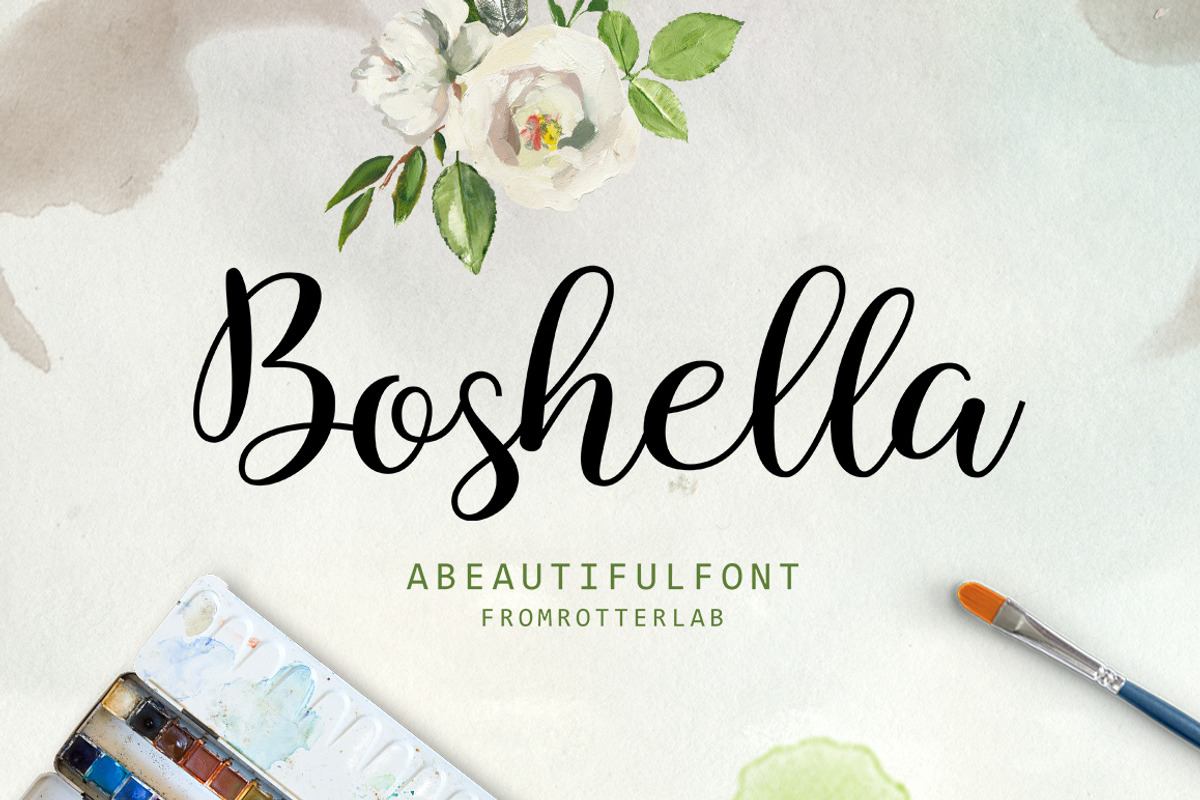
Boshella Script Font Free Download is an elegant, flowing handwritten script typeface that adds a romantic and refined touch to any design. With its graceful curves and natural stroke rhythm, Boshella is perfect for wedding invitations, feminine branding, logo design, quote graphics, and upscale packaging.
Designed to feel both luxurious and approachable, this font brings warmth and sophistication to your creative work. Whether you're designing stationery, a fashion label, or heartfelt social media content, Boshella Script delivers timeless charm. Boshella Script Font Free Download lets you try this beautiful font for personal use before investing in a commercial license.
Add handwritten elegance to your next project with Boshella — the script font that speaks with beauty and style.